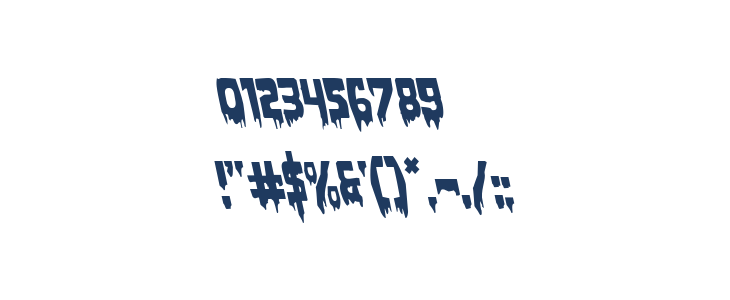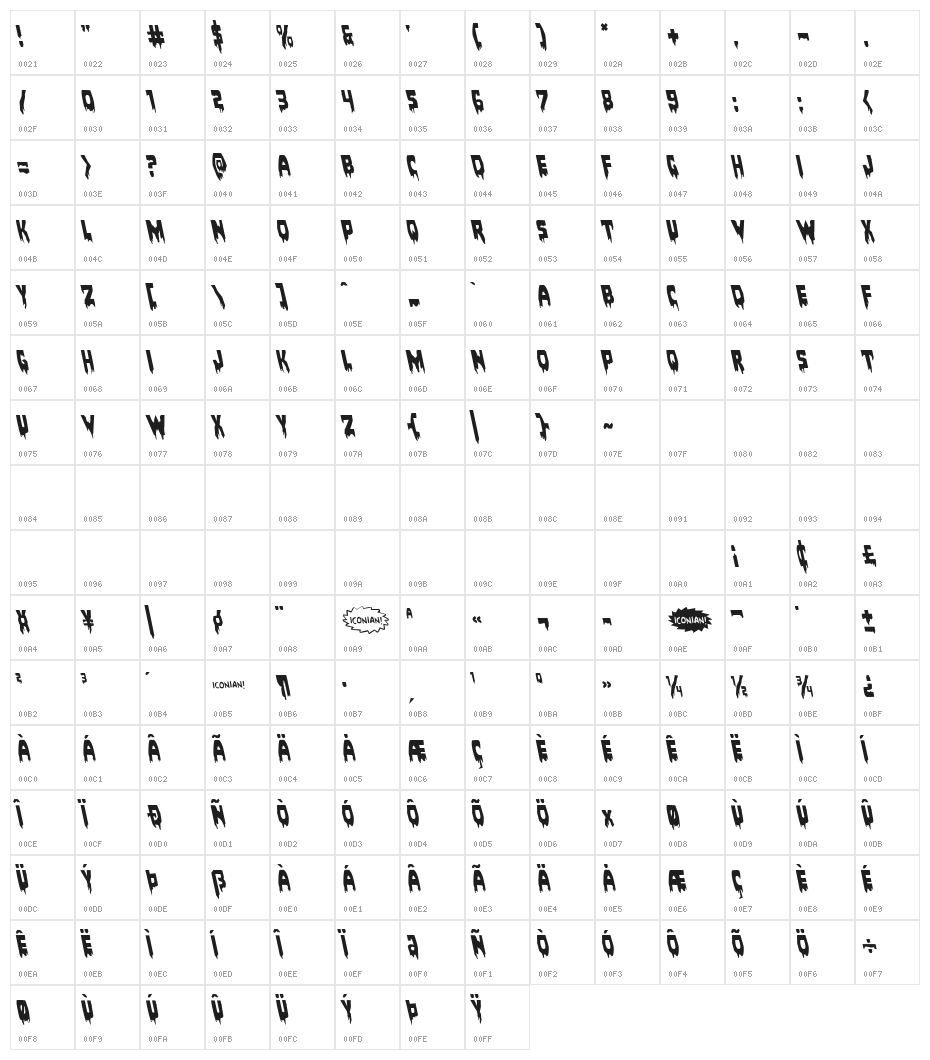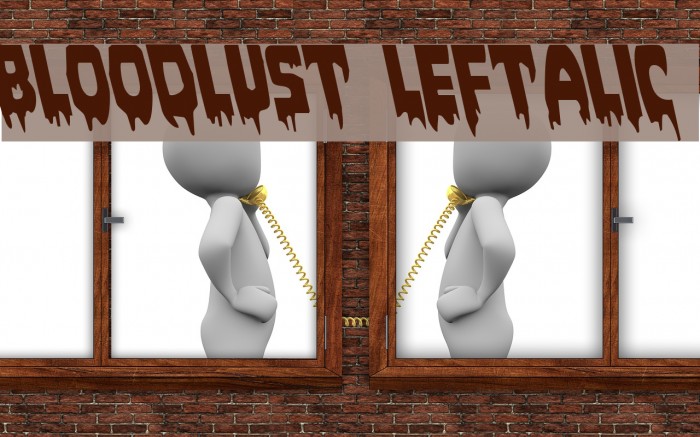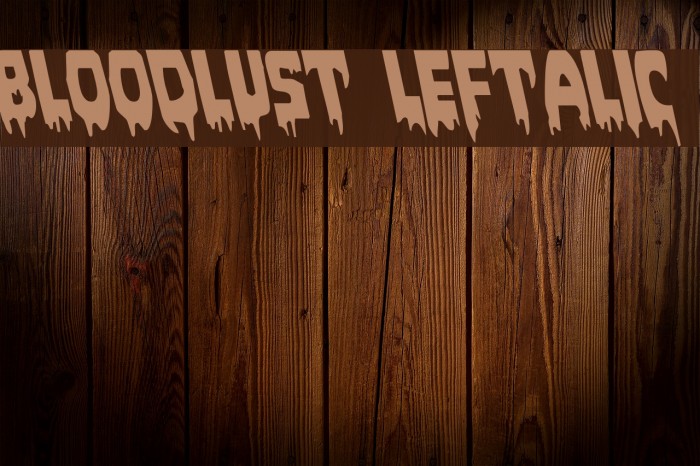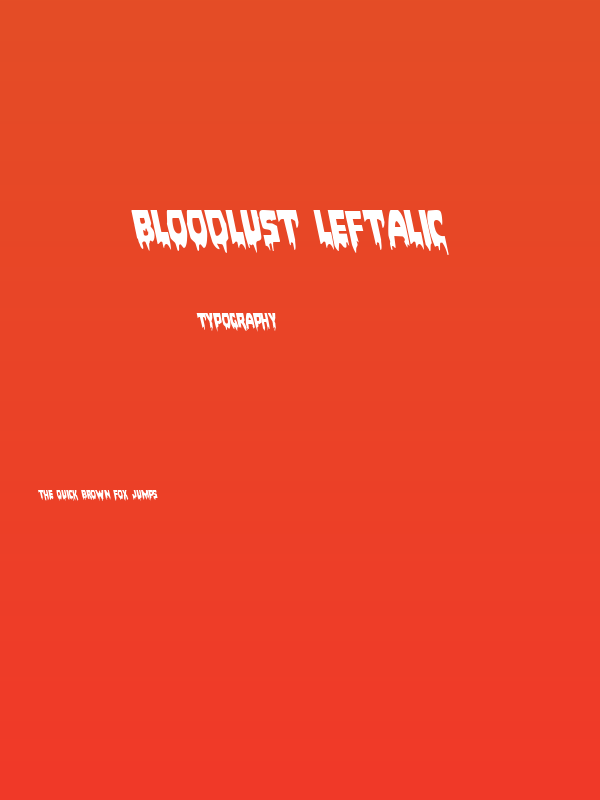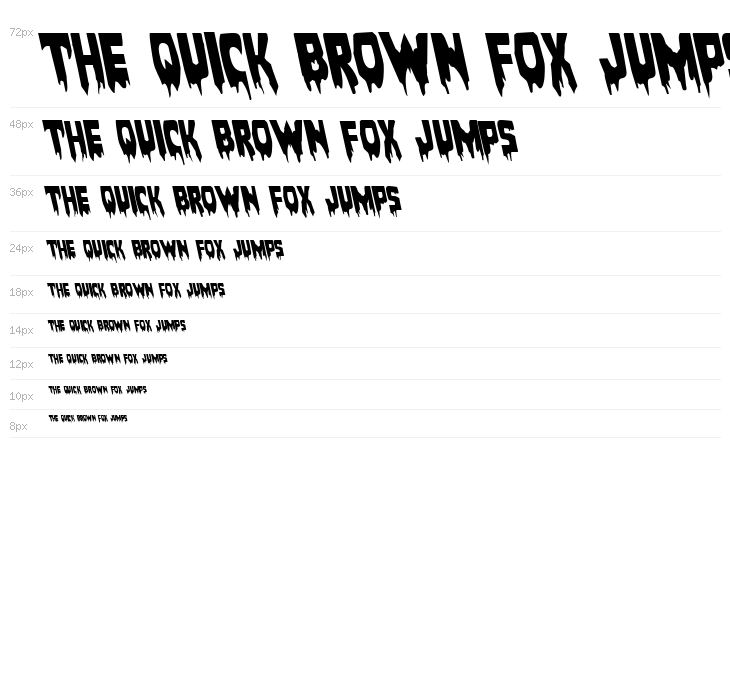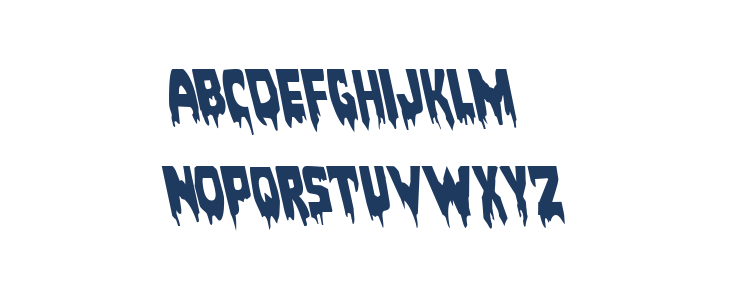
Bloodlust Leftalic Font
Bloodlust Leftalic Description
This font features a dramatic and edgy design, characterized by jagged, dripping edges that evoke a sense of horror or suspense. The letters are bold and slightly slanted, giving an impression of movement or urgency. The uppercase and lowercase letters maintain a consistent style, with sharp angles and irregular contours that mimic the appearance of dripping paint or blood. Numbers and special characters follow the same aesthetic, ensuring a cohesive look across all text elements. This font is ideal for creating a chilling atmosphere, making it perfect for Halloween-themed projects or horror movie posters.